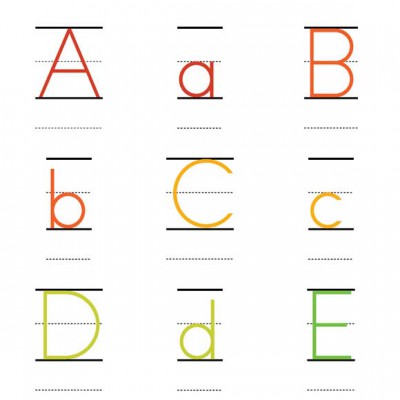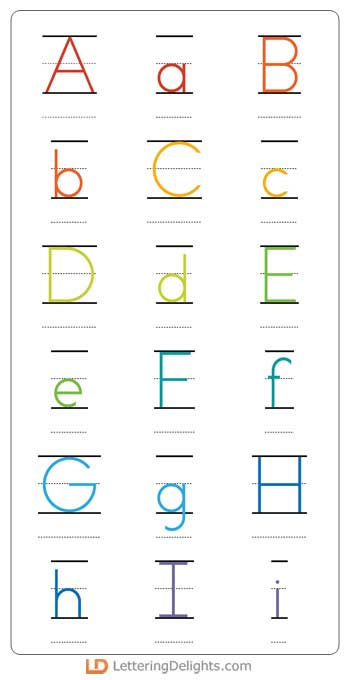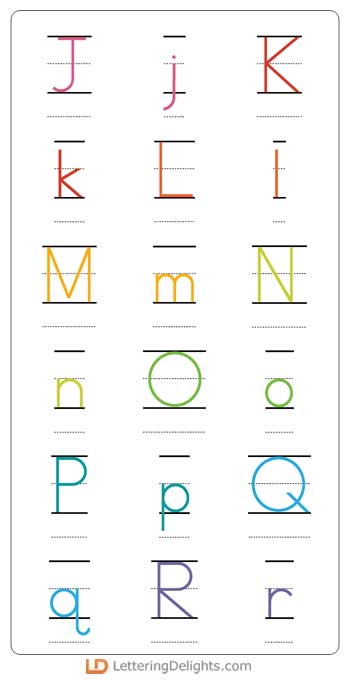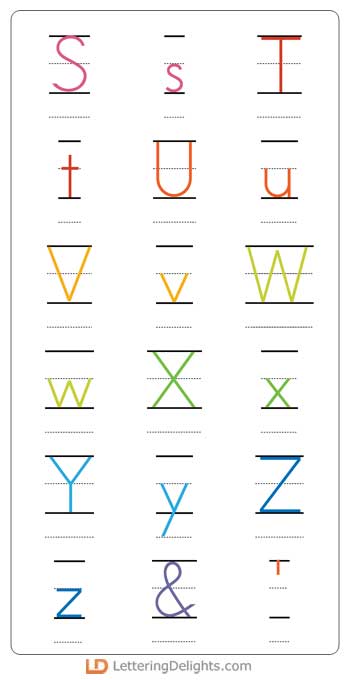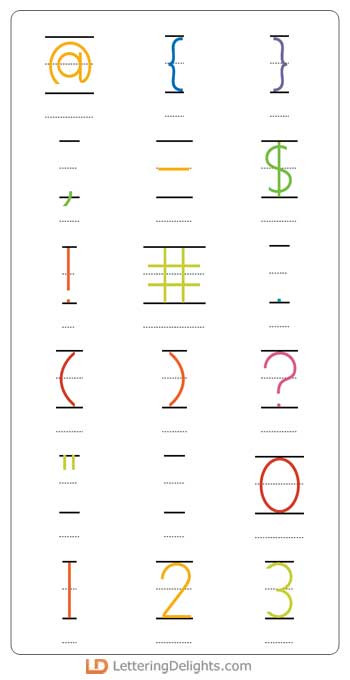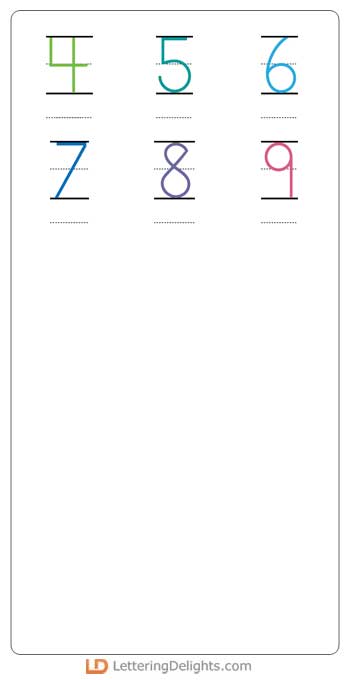
Primer Print - Lined - AL
All new tradtional print primer includes lines and dotted lines for that tradional, youthful print. Perfect to help young students learn to print and read. This alphabet has it's own color font that you can use in programs that allow for color fonts. Please note color fonts will show as black in non compatible programs. This font type is compatible with all Adobe products, Affinity Suite, Procreate, CorelDraw, Inkscape, Canva, Apple iWork, QuarkXPress, Word and PowerPoint (versions 2016/2019 and later), Silhouette Studio, Windows 10+ and macOs/iOS web browsers.